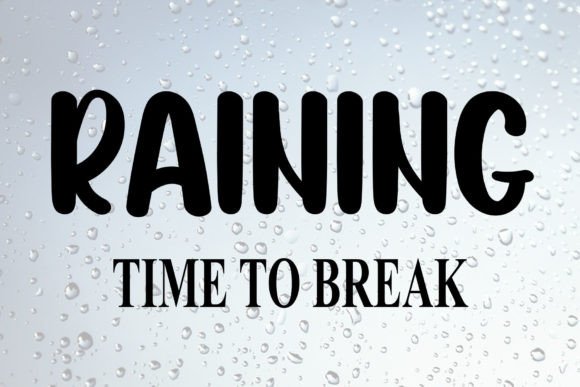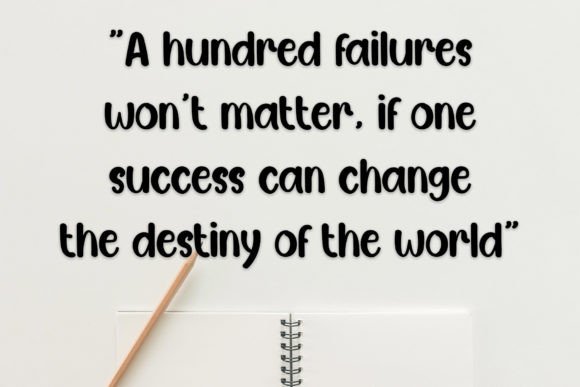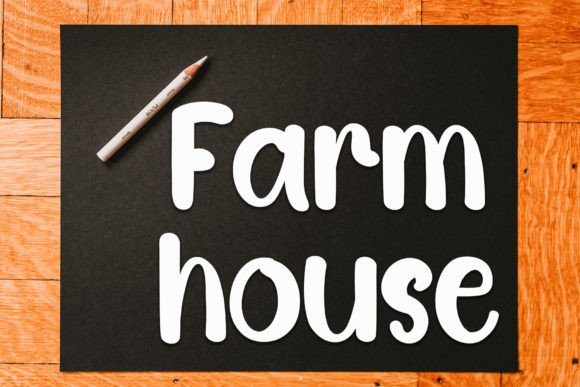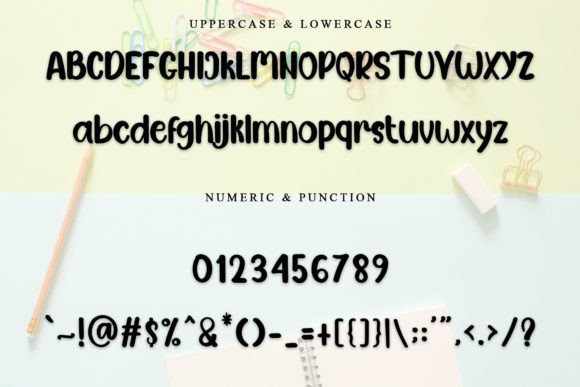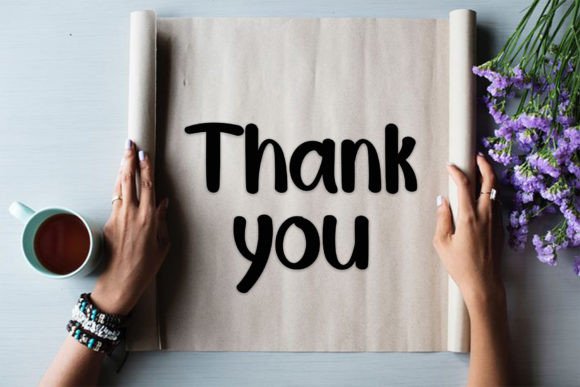
The Catch of the Day: Fishing Font
Do you remember that moment when you stumbled upon the perfect font for your project? It’s like reeling in the big one – all your design woes disappear, and your creativity soars. For me, that moment came when I discovered Fishing Font, a beautiful handwritten font that’s as elegant as it is timeless.
Fishing Font is a versatile font that’s perfect for a wide range of designs, from wedding invitation cards to birthday cards, and even logos. Its distinct style makes it a valuable addition to any designer’s toolkit, allowing you to create unique and eye-catching designs with ease. Whether you’re a seasoned pro or just starting out, Fishing Font is a catch you won’t want to let slip away.
Fishing Font Key Features
- Font Family: Fishing Font is a unique, hand-drawn font family designed specifically for fishing-related themes and applications.
- Character Set: The font family includes a wide range of characters, including uppercase and lowercase letters, numbers, punctuation marks, and special characters, making it suitable for various text-based applications.
- Unique Characteristics: The font’s hand-drawn design and fishing-themed elements, such as fish and tackle, add a touch of whimsy and personality to any text-based application.
Fishing Font Review
Overall, I think “Fishing Font” has a lot of potential, but it also has some limitations that hold it back. Let’s dive in and explore both the good and the bad.
- Unique and fun design: “Fishing Font” has a distinctive, whimsical feel that could be perfect for a specific niche or brand.
- Good legibility: The font is clear and easy to read, even at smaller sizes.
- Limited font weights and styles: The font only comes in a few weights and styles, which may limit its versatility.
- No italics or bold-italics: This is a bit of a bummer, especially for those who want to add some emphasis to their text.
- Not suitable for formal or professional use: The font’s playful design may not be suitable for more formal or professional contexts.
Overall, I think “Fishing Font” is a great choice for those who want a fun, unique font for a specific project or brand. However, it may not be the best choice for more general use or for those who need a wider range of font weights and styles.
Tips for Getting the Most Out of Fishing Font
To get the most out of Fishing Font, try the following:
- Use it for headings and titles to add a touch of elegance.
- Pair it with other fonts to create a unique and eye-catching design.
- Experiment with different font sizes and colors to enhance the impact of your design.
Fishing Font is perfect for:
- Designing fishing-related graphics and logos.
- Creating invitations and event materials with a nautical theme.
- Adding a touch of whimsy
Q: How do I customize Fishing Font for my design project?
Fishing Font is a highly customizable font family, allowing you to adjust various settings to suit your design needs. You can use font editors or design software to customize the font, including changing the font size, color, and style. Additionally, you can use CSS or other programming languages to customize the font in web design projects.